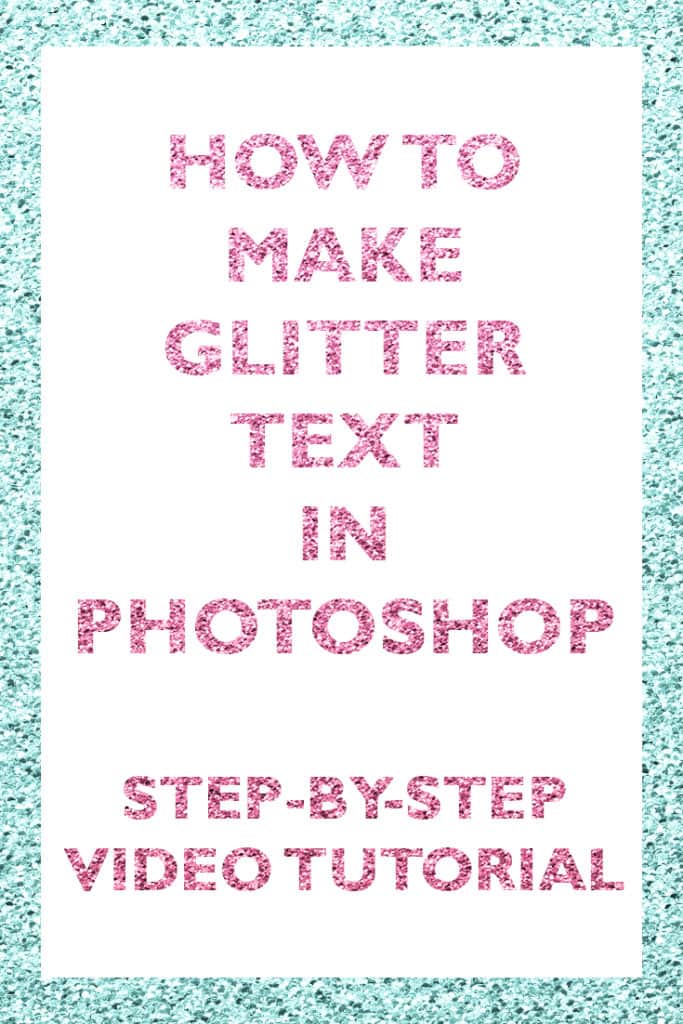
How To Add Glitter To Font In Photoshop . Glitter text tutorial in photoshop: In this instructable, i will show the steps to achieve glitter text font as a graphic. I have also added some sparkle brushes to make the text more shiny. I will show you four. Watch the video to find out how. Learn how to create glitter text in photoshop using a bunch of layer styles. See how quickly and easily you can create a glossy, glitter text effect. This is an easy and fast tutorial on how to make glitter text effect in photoshop. In this glitter text photoshop tutorial, i'll show you all of the different ways you can add glitter to your text. In this tutorial you will learn how to create a beautiful glitter text effect in photoshop using some basic layer styles and any glitter texture that you choose. Being an intermediate graphic designer and multimedia generalist, glitter text font is common with design request. I will show you how to make your own sparkle glitter. Photoshop clipping masks make creating glitter text or sparkle text in photoshop really simple.
In this tutorial you will learn how to create a beautiful glitter text effect in photoshop using some basic layer styles and any glitter texture that you choose. I will show you how to make your own sparkle glitter. In this instructable, i will show the steps to achieve glitter text font as a graphic. In this glitter text photoshop tutorial, i'll show you all of the different ways you can add glitter to your text. Being an intermediate graphic designer and multimedia generalist, glitter text font is common with design request. I will show you four. Watch the video to find out how. Learn how to create glitter text in photoshop using a bunch of layer styles. I have also added some sparkle brushes to make the text more shiny. See how quickly and easily you can create a glossy, glitter text effect.
How To Add Glitter To Font In Photoshop clipping masks make creating glitter text or sparkle text in photoshop really simple. In this tutorial you will learn how to create a beautiful glitter text effect in photoshop using some basic layer styles and any glitter texture that you choose. In this glitter text photoshop tutorial, i'll show you all of the different ways you can add glitter to your text. I have also added some sparkle brushes to make the text more shiny. In this instructable, i will show the steps to achieve glitter text font as a graphic. I will show you four. This is an easy and fast tutorial on how to make glitter text effect in photoshop. See how quickly and easily you can create a glossy, glitter text effect. I will show you how to make your own sparkle glitter. Photoshop clipping masks make creating glitter text or sparkle text in photoshop really simple. Watch the video to find out how. Being an intermediate graphic designer and multimedia generalist, glitter text font is common with design request. Learn how to create glitter text in photoshop using a bunch of layer styles. Glitter text tutorial in photoshop:
How to Add a Glitter Effect in 12 Steps (with Pictures) How To Add Glitter To Font In Photoshop See how quickly and easily you can create a glossy, glitter text effect. In this instructable, i will show the steps to achieve glitter text font as a graphic. Glitter text tutorial in photoshop: In this tutorial you will learn how to create a beautiful glitter text effect in photoshop using some basic layer styles and any glitter texture that. How To Add Glitter To Font In Photoshop.
20 Glitter Tutorials U Create How To Add Glitter To Font In Photoshop Learn how to create glitter text in photoshop using a bunch of layer styles. In this tutorial you will learn how to create a beautiful glitter text effect in photoshop using some basic layer styles and any glitter texture that you choose. I have also added some sparkle brushes to make the text more shiny. Glitter text tutorial in photoshop:. How To Add Glitter To Font In Photoshop.
How To Glitter Text In Wpromote How To Add Glitter To Font In Photoshop Learn how to create glitter text in photoshop using a bunch of layer styles. Being an intermediate graphic designer and multimedia generalist, glitter text font is common with design request. This is an easy and fast tutorial on how to make glitter text effect in photoshop. I will show you how to make your own sparkle glitter. In this tutorial. How To Add Glitter To Font In Photoshop.
(FREE) Glitter Patterns for Supply Free How To Add Glitter To Font In Photoshop In this instructable, i will show the steps to achieve glitter text font as a graphic. See how quickly and easily you can create a glossy, glitter text effect. This is an easy and fast tutorial on how to make glitter text effect in photoshop. Watch the video to find out how. In this glitter text photoshop tutorial, i'll show. How To Add Glitter To Font In Photoshop.
How To Add A Font In YouTube How To Add Glitter To Font In Photoshop In this instructable, i will show the steps to achieve glitter text font as a graphic. In this tutorial you will learn how to create a beautiful glitter text effect in photoshop using some basic layer styles and any glitter texture that you choose. See how quickly and easily you can create a glossy, glitter text effect. Being an intermediate. How To Add Glitter To Font In Photoshop.
glitter text effect how to add glitter in canva. text glitter effect How To Add Glitter To Font In Photoshop Watch the video to find out how. I have also added some sparkle brushes to make the text more shiny. In this instructable, i will show the steps to achieve glitter text font as a graphic. I will show you how to make your own sparkle glitter. This is an easy and fast tutorial on how to make glitter text. How To Add Glitter To Font In Photoshop.
Learn How to Create a Gold Glitter Text Effect in How To Add Glitter To Font In Photoshop clipping masks make creating glitter text or sparkle text in photoshop really simple. Watch the video to find out how. I will show you four. Being an intermediate graphic designer and multimedia generalist, glitter text font is common with design request. In this glitter text photoshop tutorial, i'll show you all of the different ways you can add glitter. How To Add Glitter To Font In Photoshop.
Glitter text effect in Aprende Facil How To Add Glitter To Font In Photoshop Glitter text tutorial in photoshop: Learn how to create glitter text in photoshop using a bunch of layer styles. In this glitter text photoshop tutorial, i'll show you all of the different ways you can add glitter to your text. I will show you how to make your own sparkle glitter. In this instructable, i will show the steps to. How To Add Glitter To Font In Photoshop.
Make Glitter Backgrounds, Patterns and Glitter Text Effects in How To Add Glitter To Font In Photoshop In this instructable, i will show the steps to achieve glitter text font as a graphic. I will show you four. Learn how to create glitter text in photoshop using a bunch of layer styles. This is an easy and fast tutorial on how to make glitter text effect in photoshop. In this tutorial you will learn how to create. How To Add Glitter To Font In Photoshop.